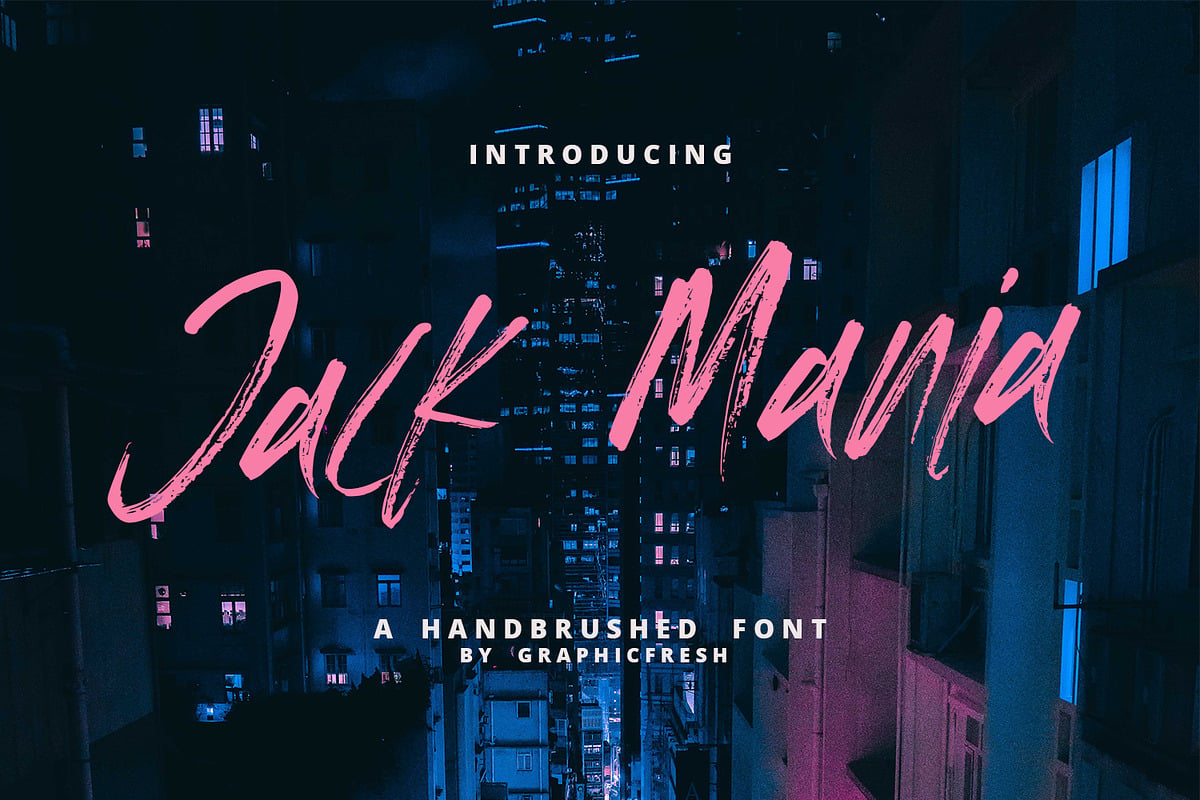
The JACK MANIA Brush Font
Raw, expressive, and full of energy — Jack Mania is a hand-brushed script font built for bold creative work.
This typeface was crafted by physically painting each letter with a brush pen on paper, making it a true work of art in its own right. Every character was carefully drawn to maintain a distinctive, consistent style throughout — the result of a meticulous, hands-on creative process.
Whether you're designing posters, quotes, logos, apparel, or social media graphics, Jack Mania brings an authentic, gritty energy that digital fonts simply can't fake.